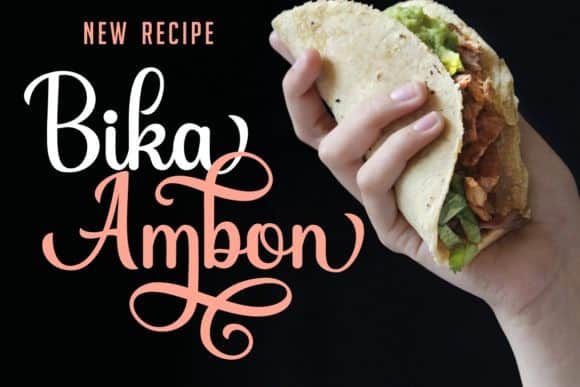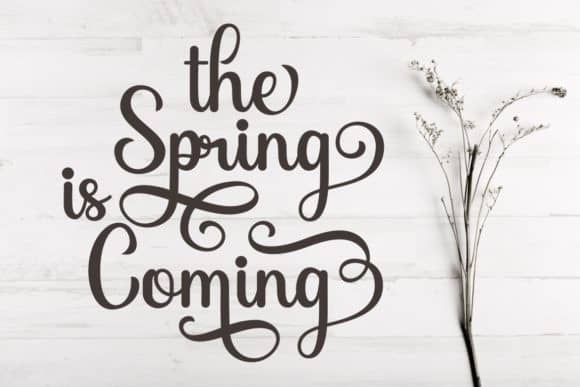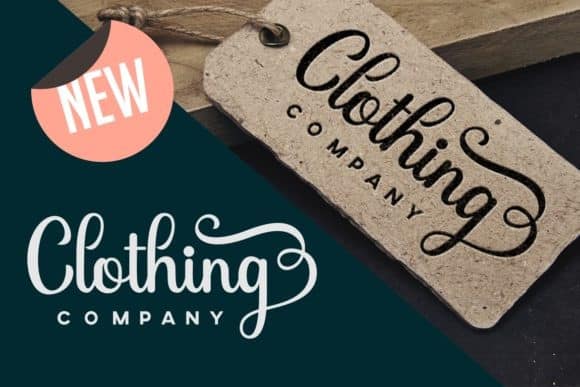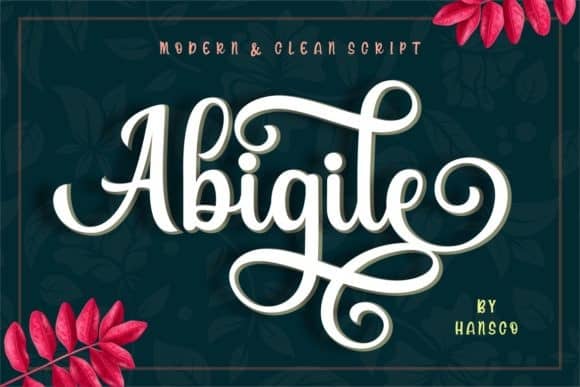
Abigile Calligraphy Font is a delicate, elegant and flowing hand-drawn font. It has beautiful and well balanced characters and as a result, it matches a wide pool of designs. Made from font designer named HansCo. A modern handwritten font, carefully handcrafted to become a true favorite. Its casual charm makes it appear wonderfully down-to-earth, readable and, ultimately, incredibly versatile. Abigile will look outstanding in any context, whether it’s being used on busy backgrounds or as a standalone headline!
Abigile